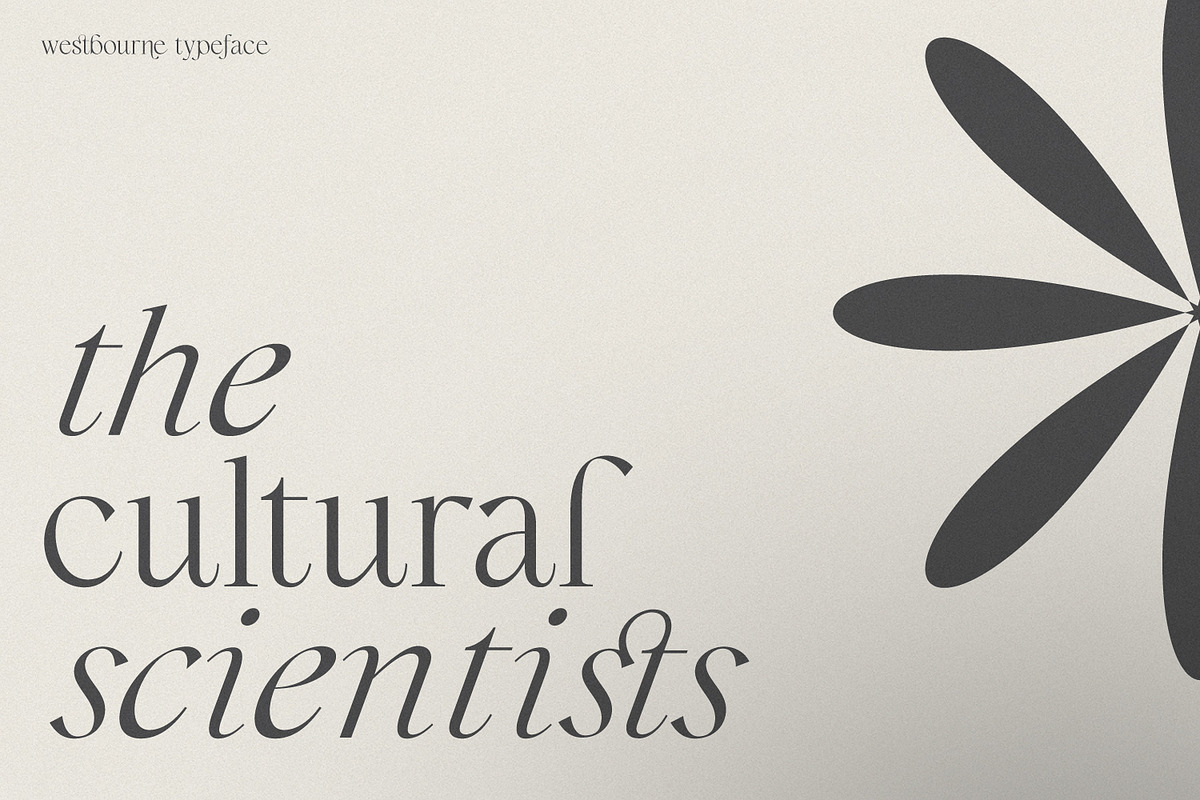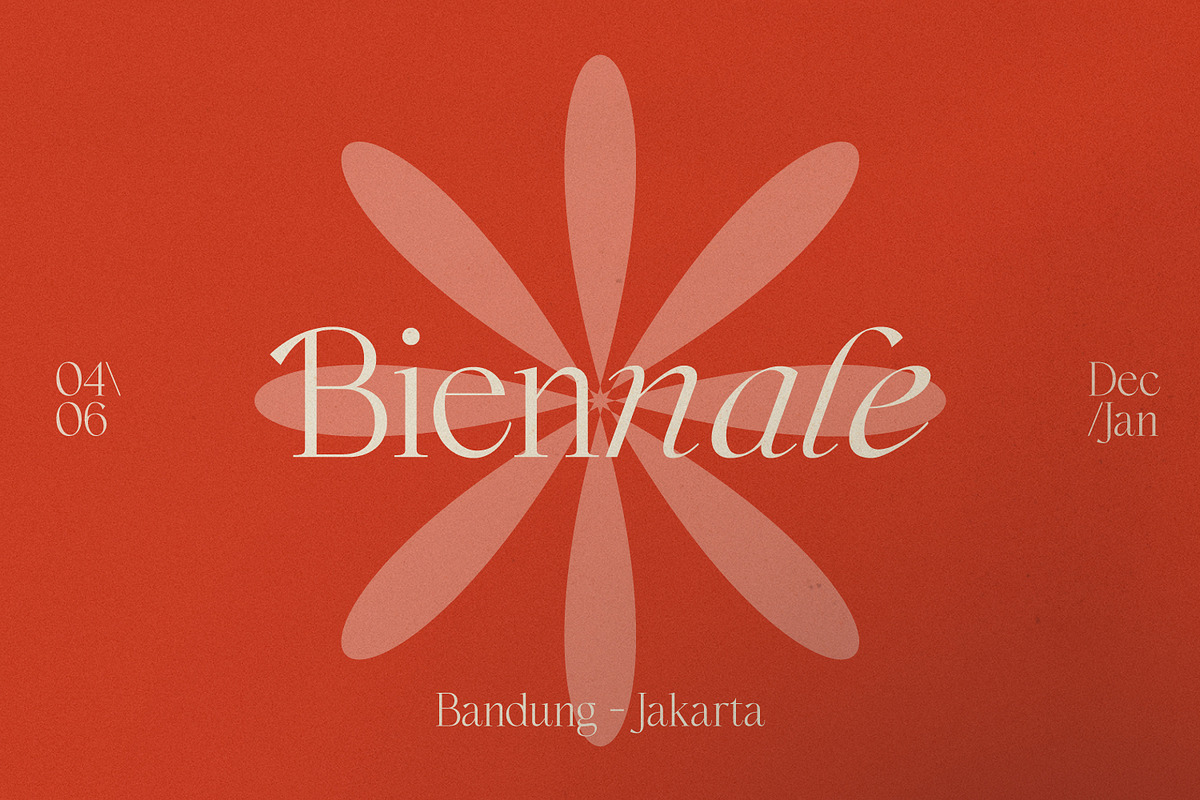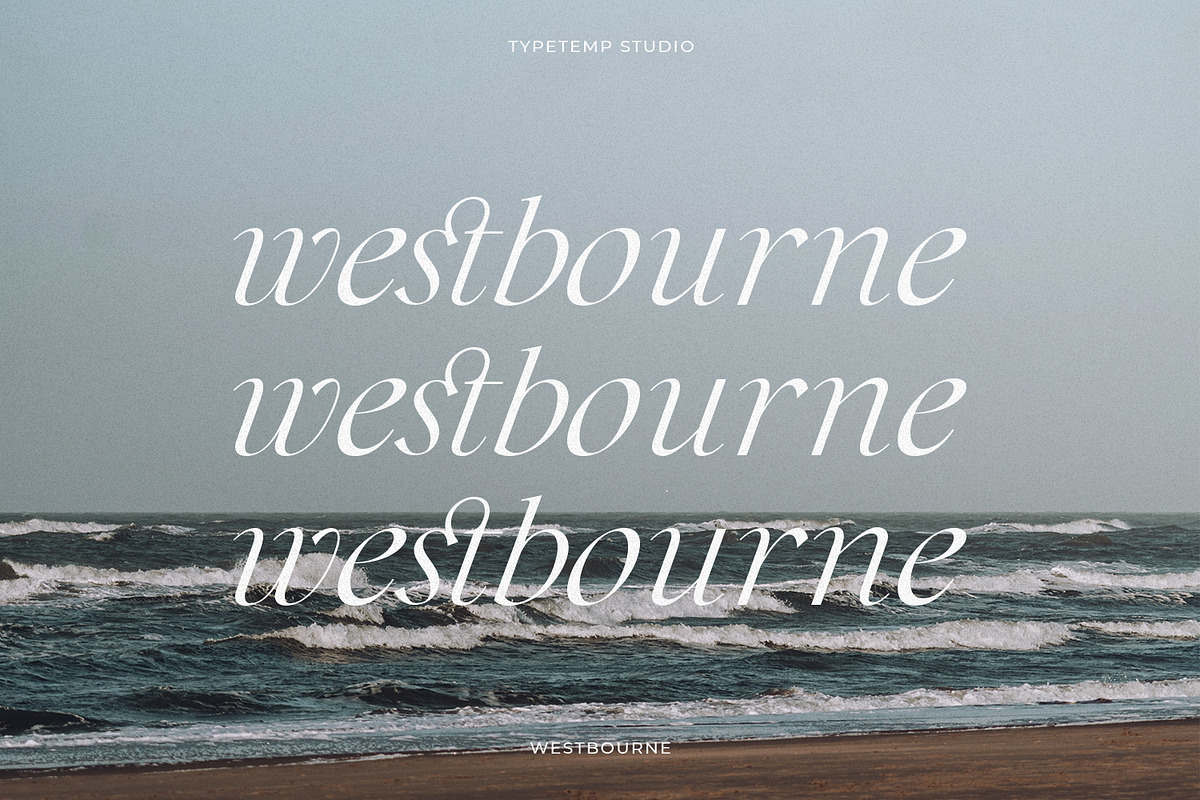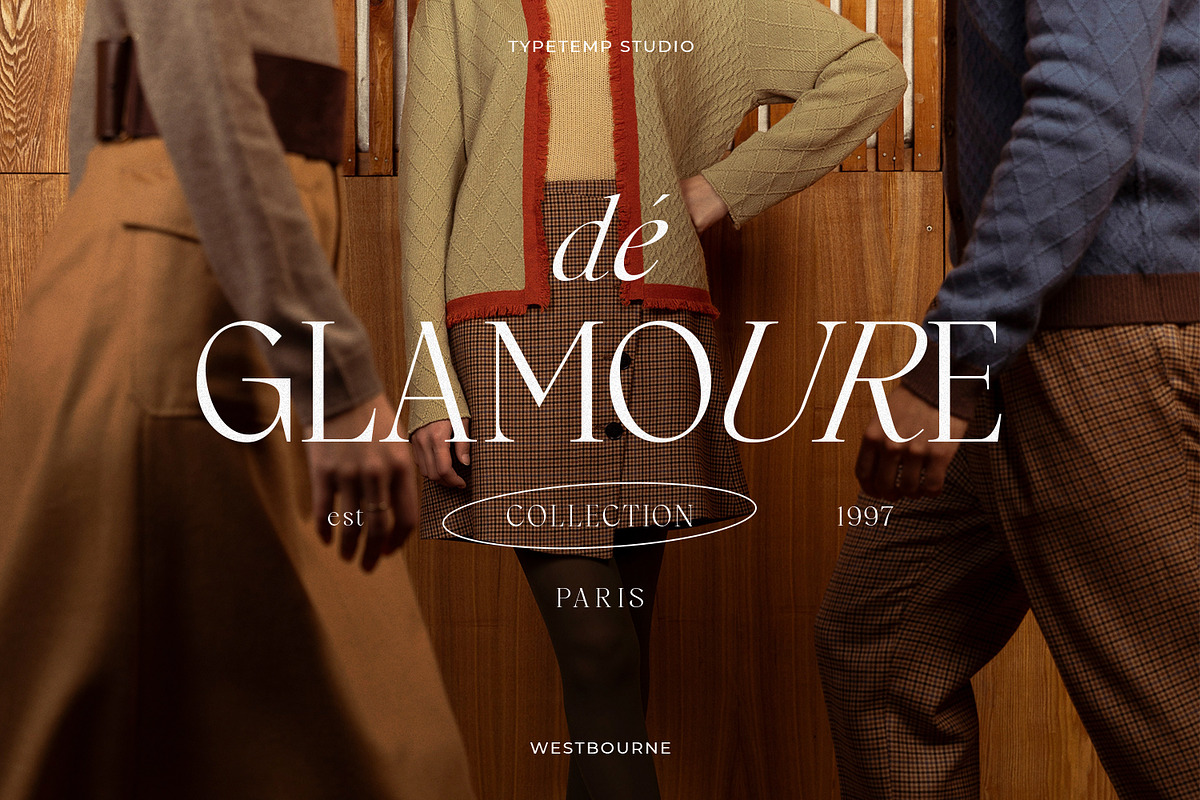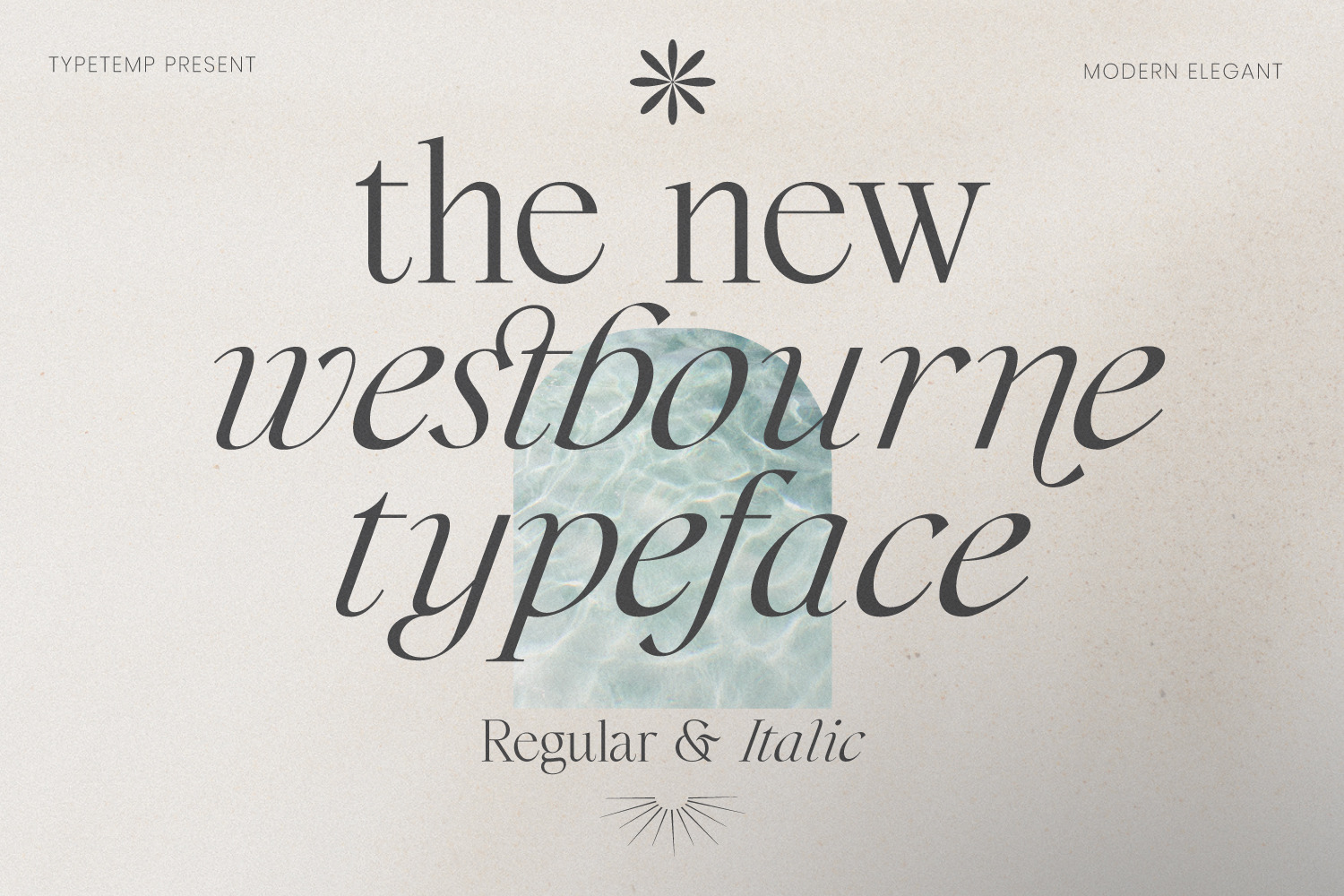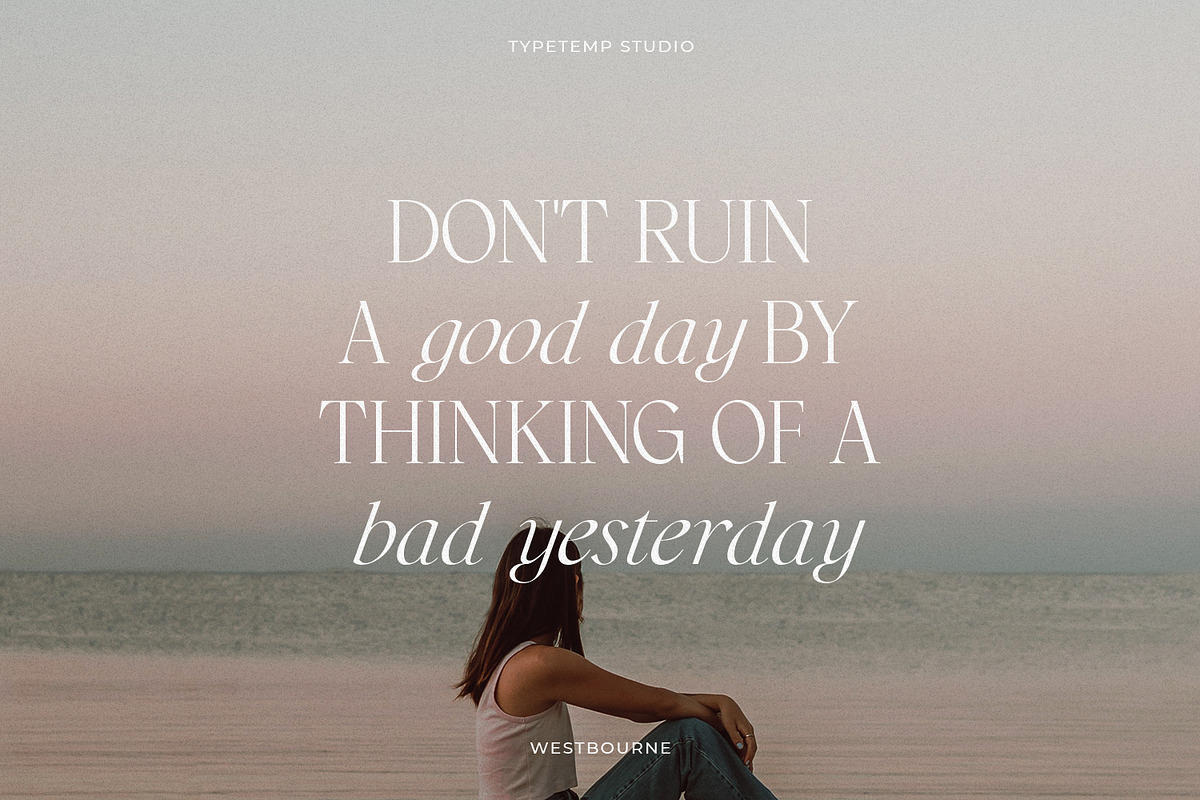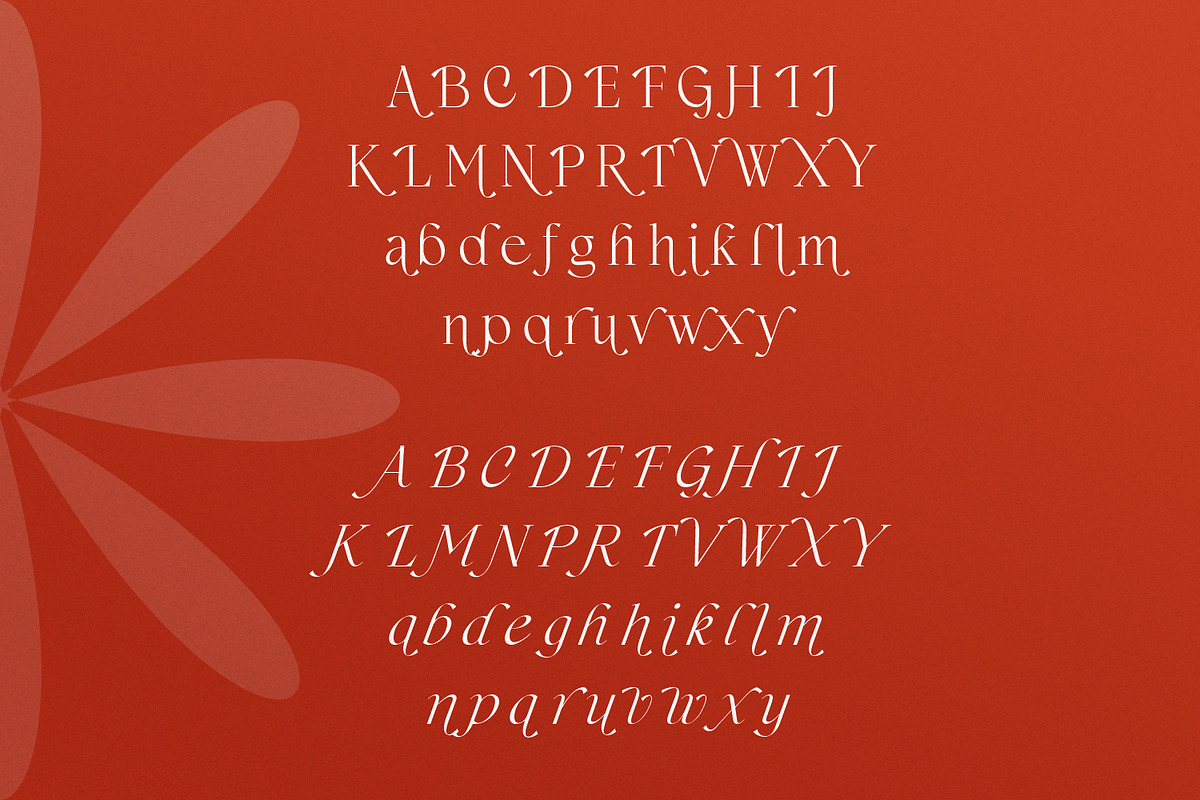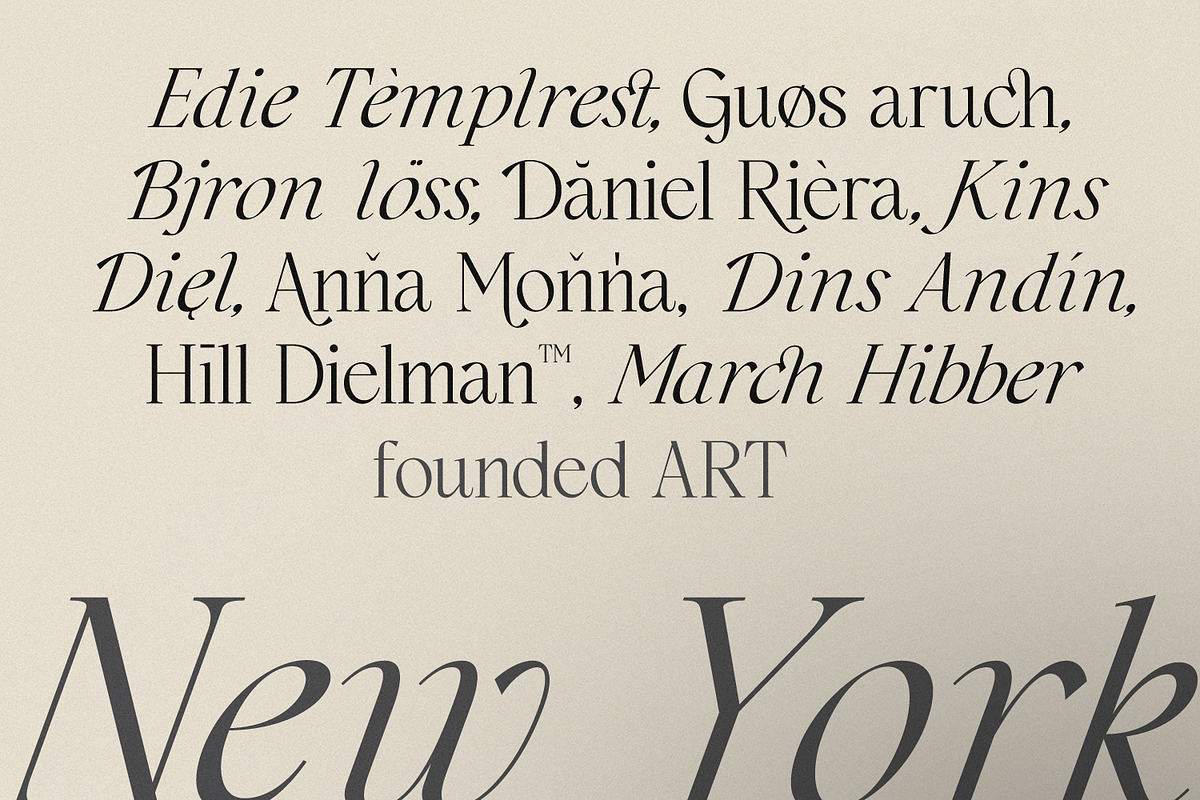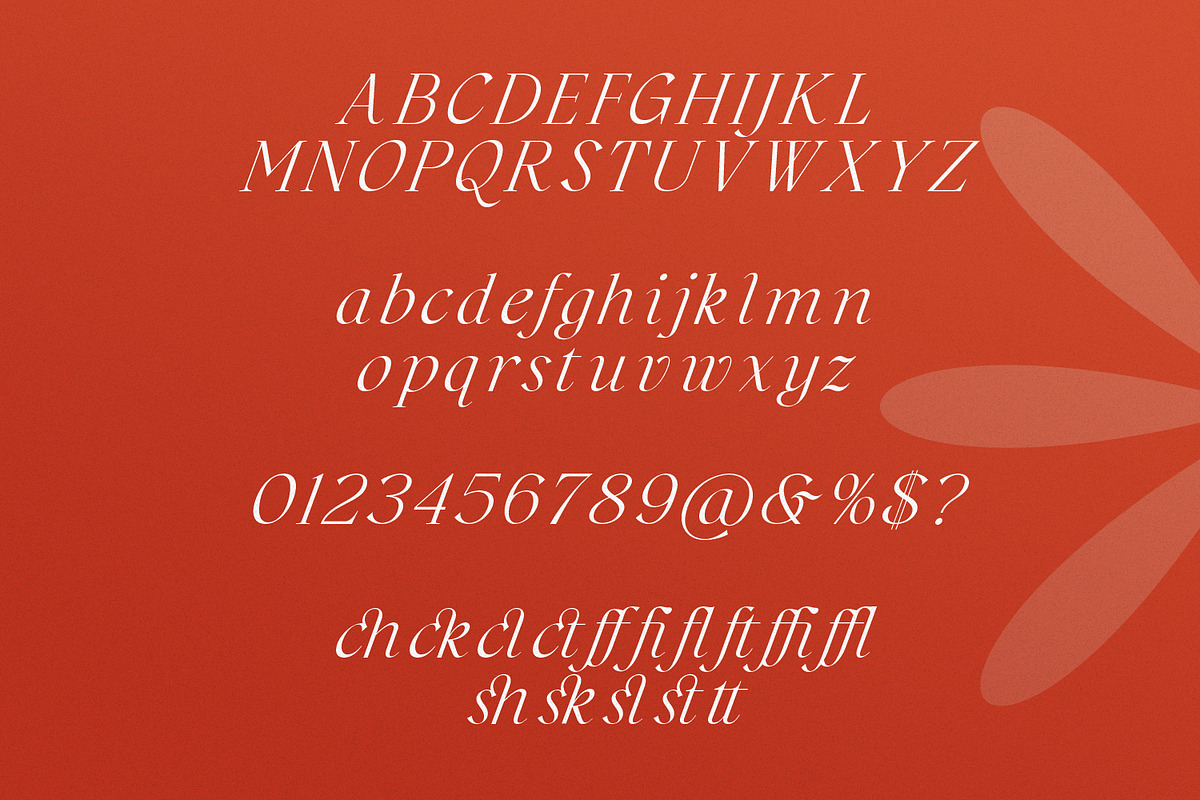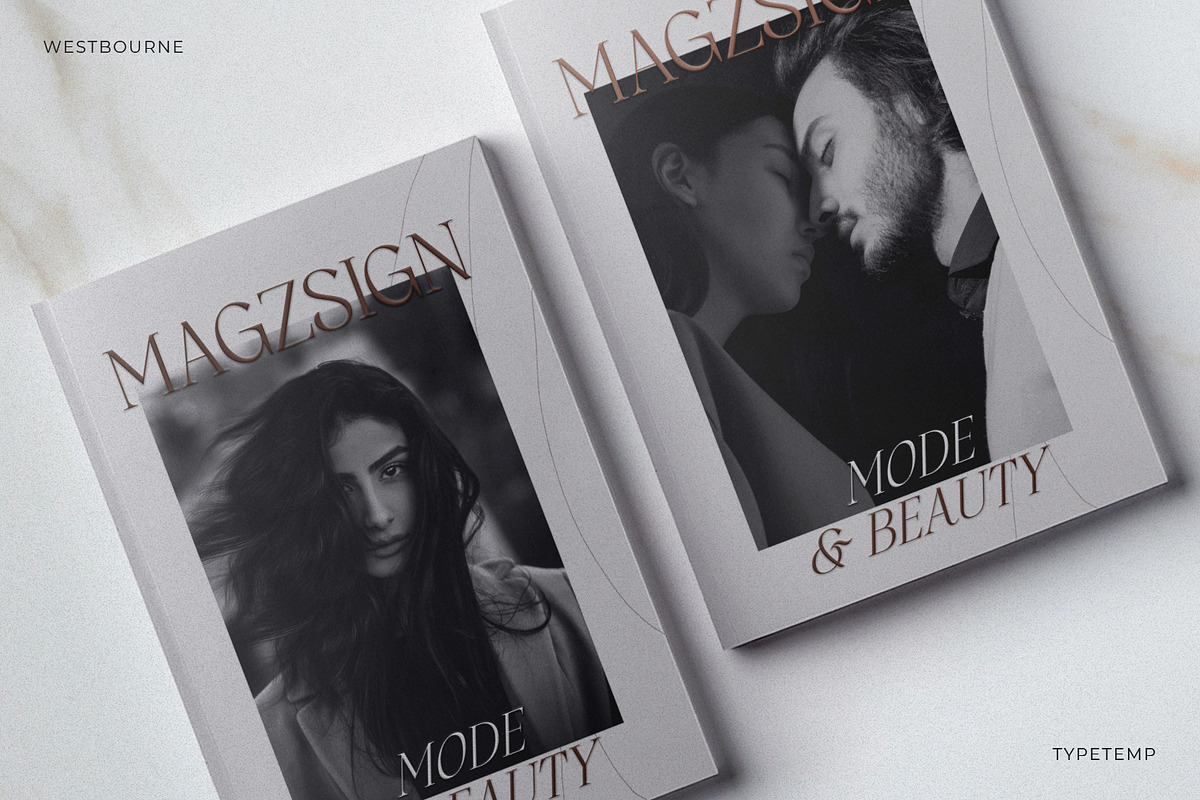
Westbourne - Modern Serif Typeface
The New Westbourne is a sophisticated, high-contrast serif font family presented by Typetemp. Combining clean contemporary geometry with a classic editorial aesthetic, this typeface includes both a timeless Regular style and a fluid, graceful Italic style. Its unique character loops and sharp transitions make it perfect for adding a luxurious, high-end feel to your projects.
Two essential styles: Regular and Italic.
Beautiful high-contrast strokes and elegant decorative loops.
Complete multilingual support for international projects.
Detailed Usage
Luxury Branding: Ideal for high-end skincare, boutique hospitality, interior design studios, and corporate identities looking for a refined, premium look.
Product Packaging: Perfect for prestige cosmetics, perfume labels, gourmet food containers, and artisan product packaging.
Editorial & Layouts: A top choice for fashion magazine mastheads, digital lookbooks, luxury catalog headlines, and elegant book covers.
Digital Content: Elevates website hero banners, aesthetic social media graphics, photography watermarks, and sophisticated title cards.